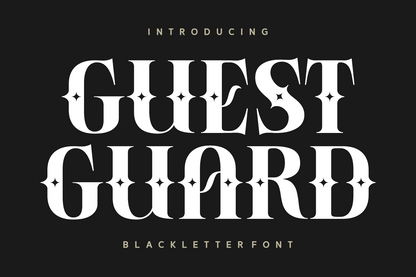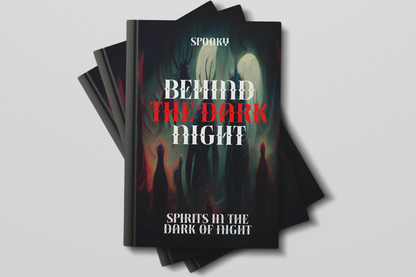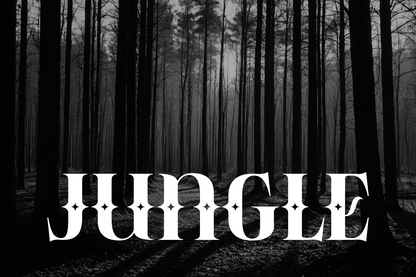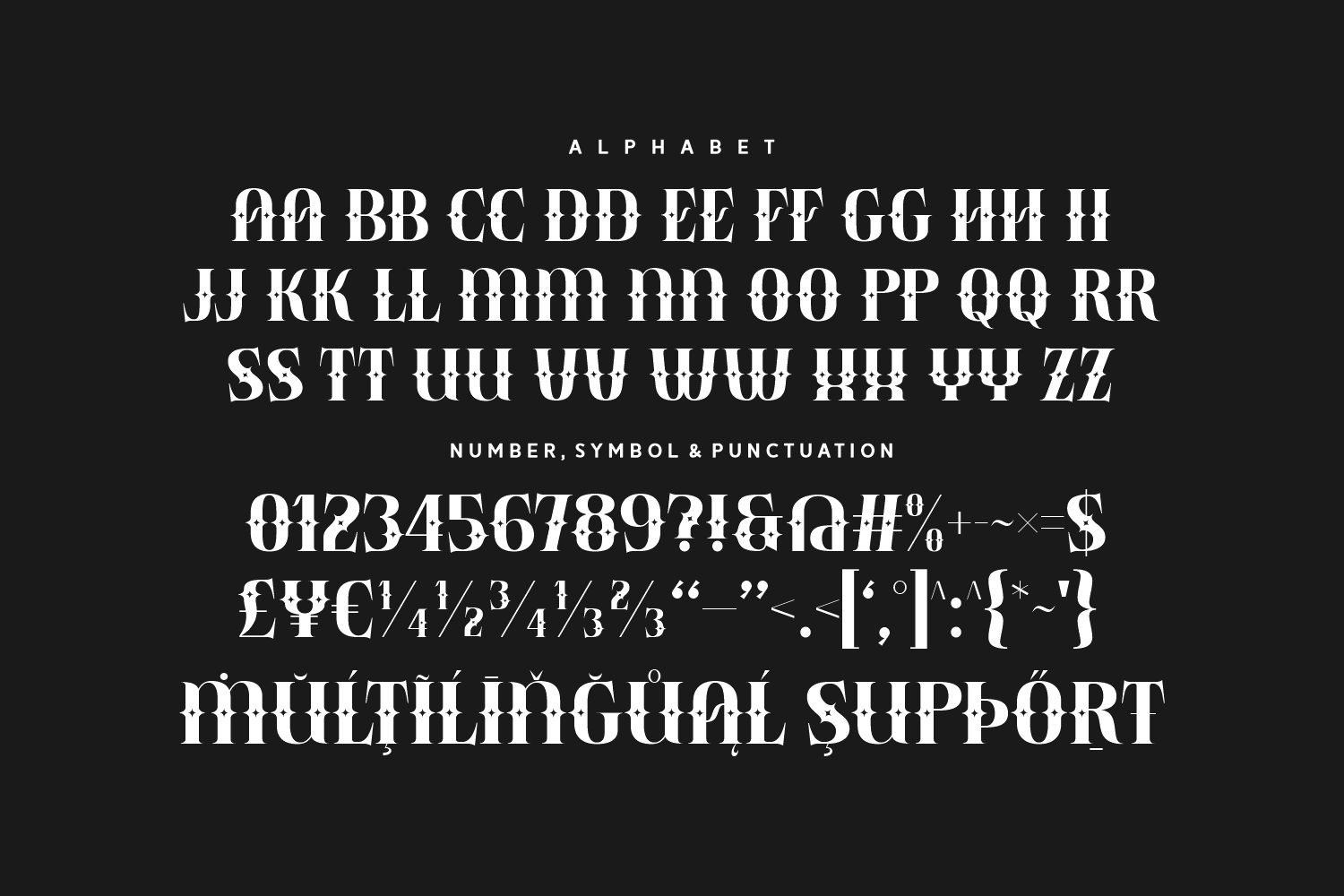
Guest Guard is a stylish blend of vintage blackletter and modern elegance. With star-shaped inlines and high contrast strokes, it evokes both gothic flair and refined luxury—ideal for branding, album covers, and upscale merch with a dark edge.